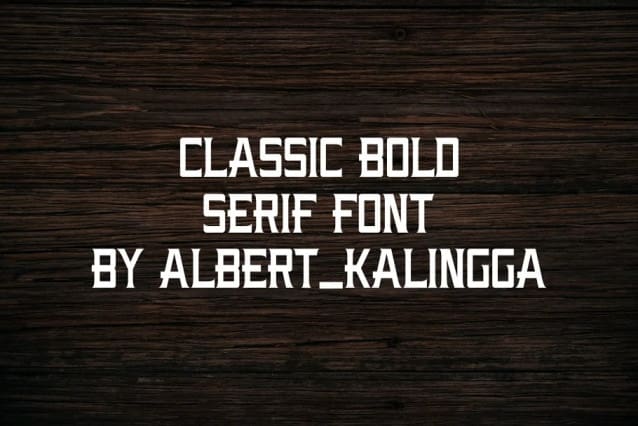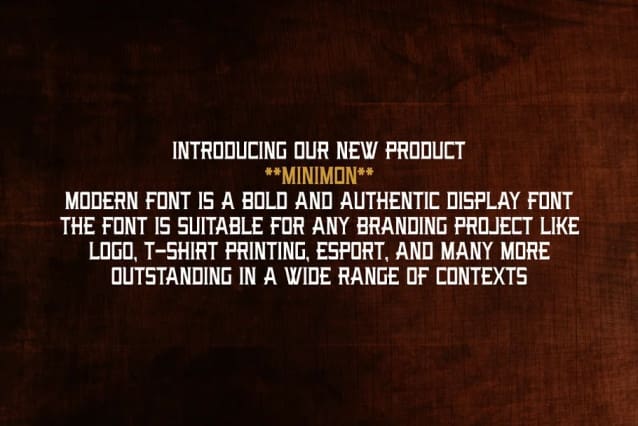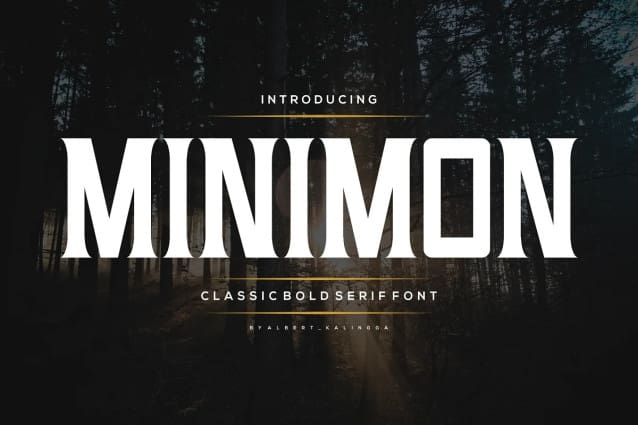
Minimon Font
Minimon Font – Modern Font is a bold and authentic display font. The font is suitable for any branding project like logo, esport, and many more. outstanding in a wide range of contexts.